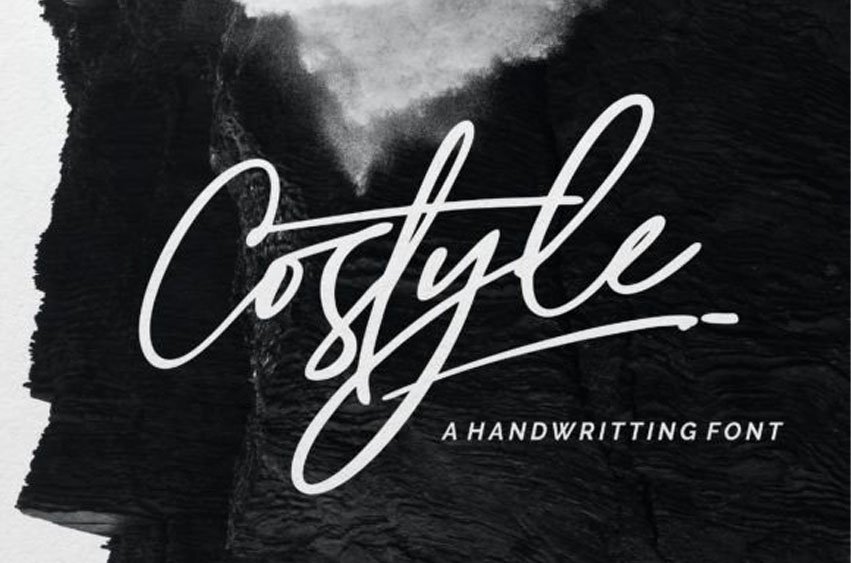
Costyle Font is a handwritten font. Its unique flow and easy signature style make it perfect to use for logos, signatures, quotes, badges, labels, packaging design, blog headlines, or simply use it in your next design project.